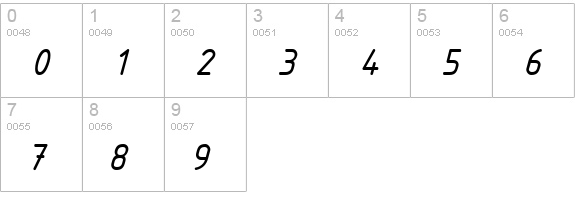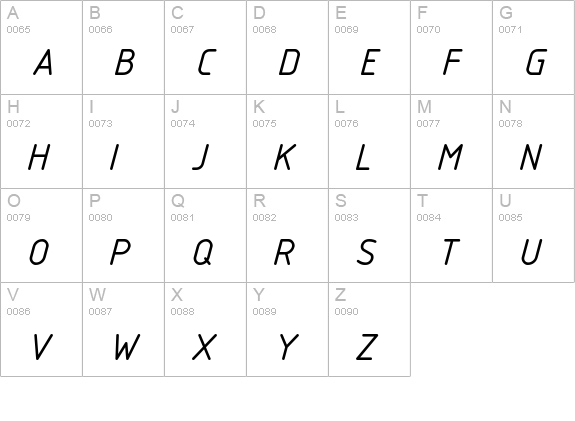
ISOCPEUR Italic Font Details
ISOCPEUR Italic is a distinctive, italic variant in the ISOCPEUR typeface family \xE2\x80\x94 well suited to design and typography projects.
ISOCPEUR Italic is a stunning font that combines elegance and versatility. Its sleek and slanted design adds a touch of sophistication to any project, making it perfect for both professional and creative endeavors. The italicized letters exude a sense of dynamism and movement, capturing attention and guiding the reader's eye effortlessly. This font is not only visually appealing but also highly legible, ensuring clear communication and easy readability. Whether used for headings, subheadings, body text, or even logos, ISOCPEUR Italic delivers a polished and refined look that elevates any design. One of the best features of ISOCPEUR Italic is that it is freely available to download at FontsMarket.com. This means that you can easily access and enjoy this exceptional font without any cost. This makes it an excellent choice for students, professionals, and anyone else seeking a high-quality font without breaking the bank. ISOCPEUR Italic is a true gem in the world of typography, offering a harmonious blend of style and functionality. Its versatility allows it to shine in a wide range of projects, from print materials to digital creations. Whether used for branding, advertising, publications, or presentations, this font will undoubtedly leave a lasting impression. With its free availability and exceptional design, ISOCPEUR Italic is a must-have font for anyone looking to add a touch of elegance and professionalism to their designs. Download it today from FontsMarket.com and unlock its full potential for your next project.